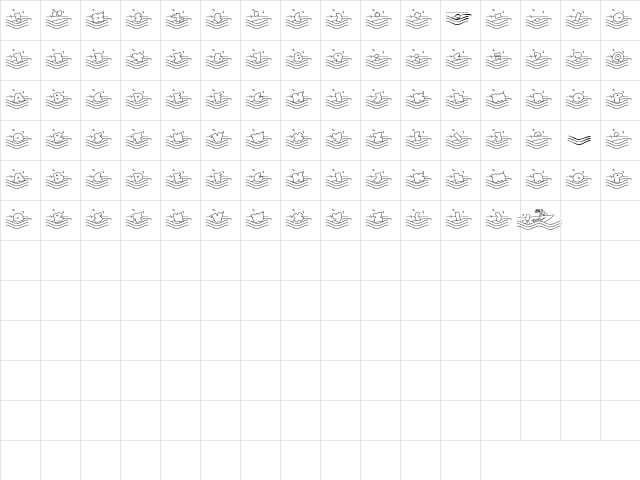
LD Waterski Regular
Design Context for LD Waterski Typeface
LD Waterski is a composed and adaptable typeface that performs quietly and consistently across a wide range of design contexts.